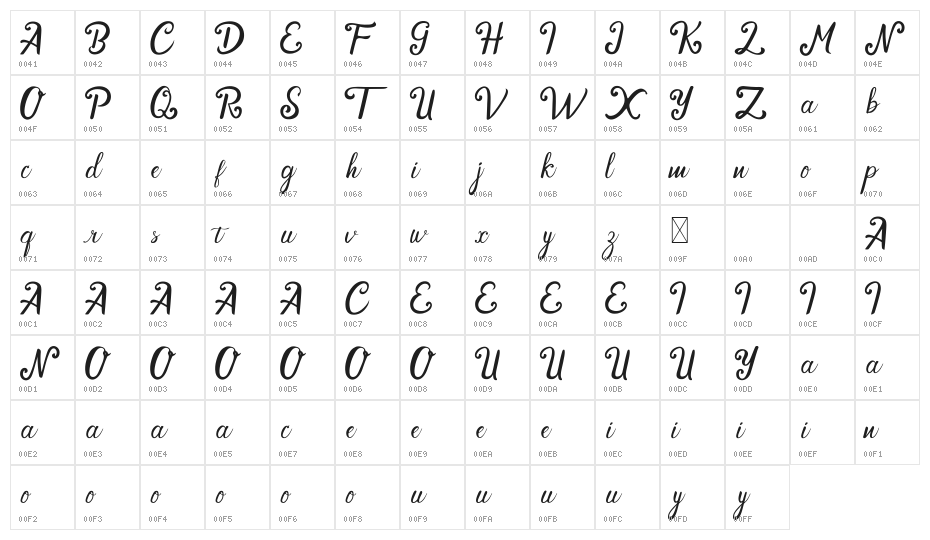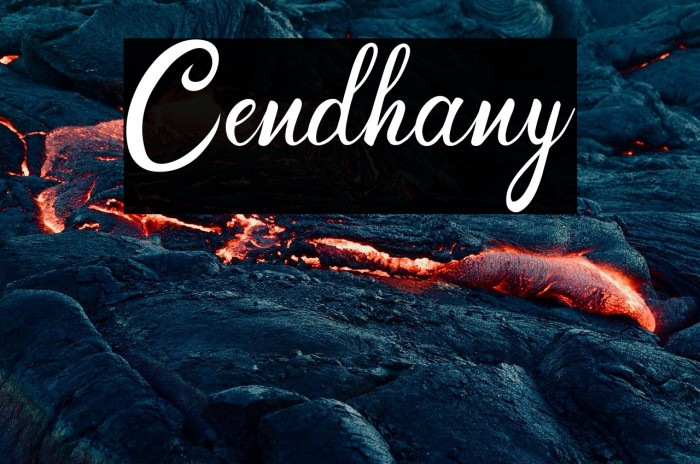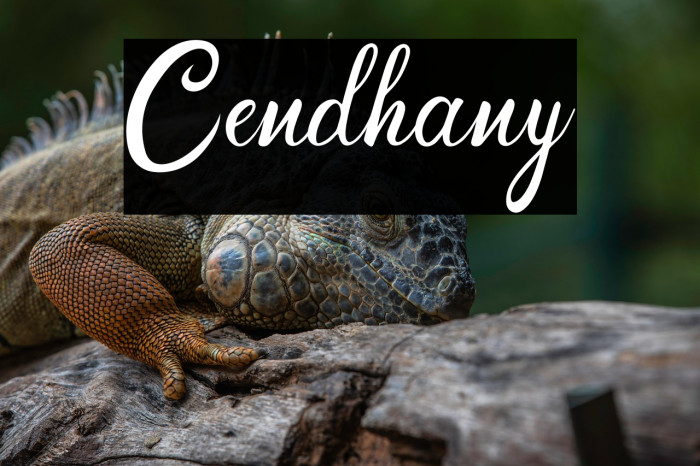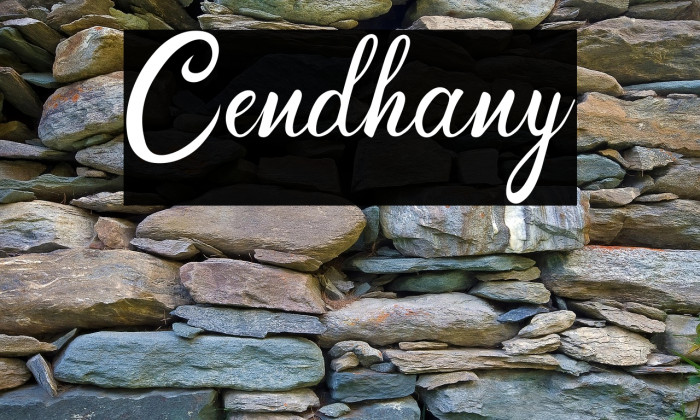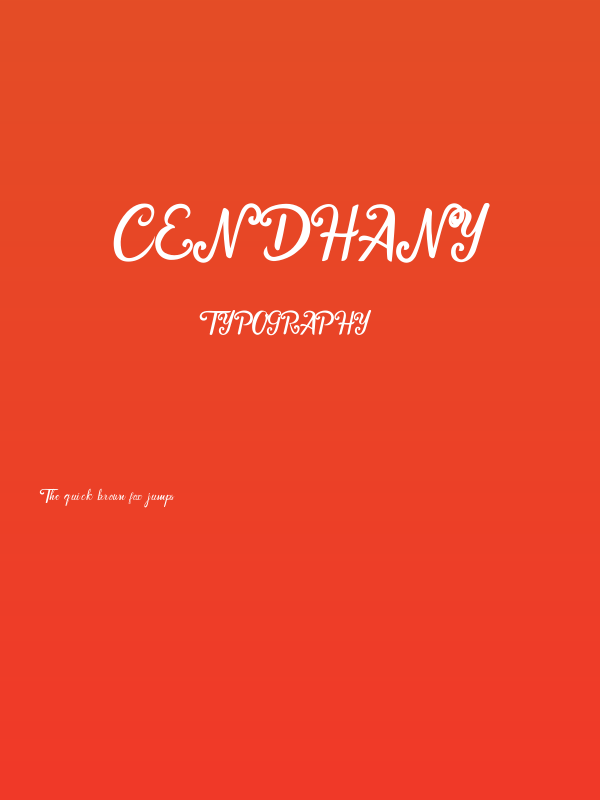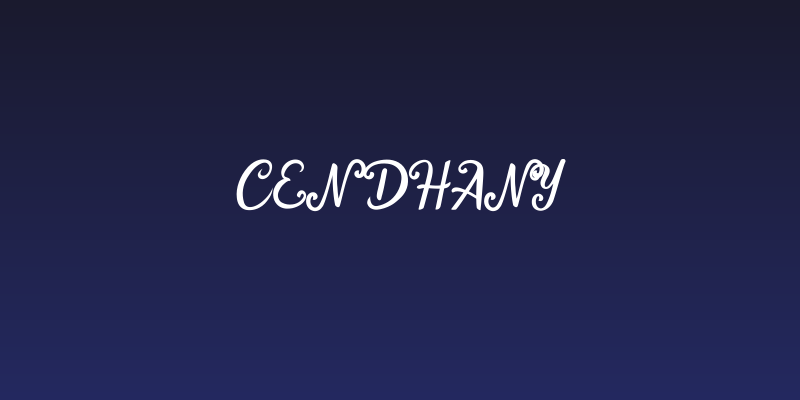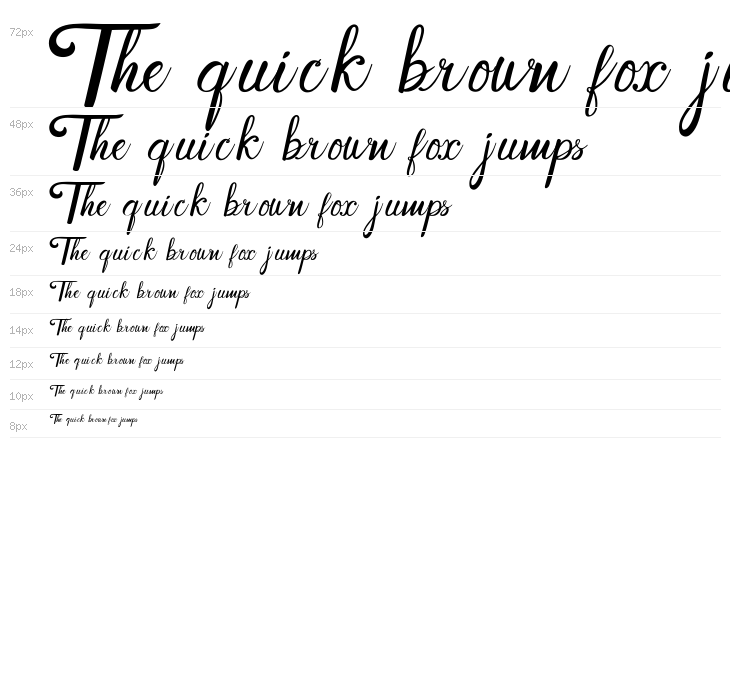
Cendhany Font
Cendhany Description
This font features a decorative and elegant script style with a flowing, cursive design. The uppercase letters are characterized by their ornate loops and swirls, giving them a sophisticated appearance. The lowercase letters maintain a consistent flow, with some characters extending below the baseline, adding to the font's graceful look. The numbers and special characters are designed to match the overall aesthetic, ensuring a cohesive appearance across all text. This font is ideal for projects that require a touch of elegance and style.
Use CaseLogos, Invitations, Decorative Text
Proposed ProjectsIdeal for wedding invitations, greeting cards, branding, and elegant signage.